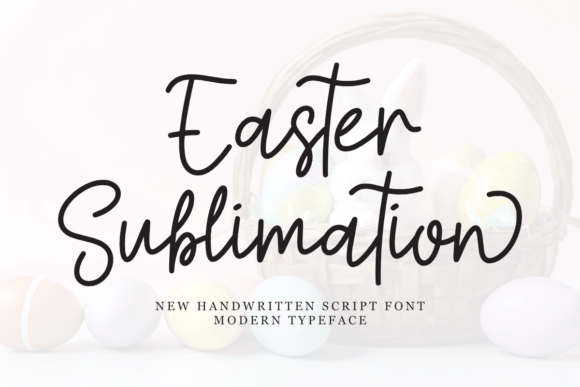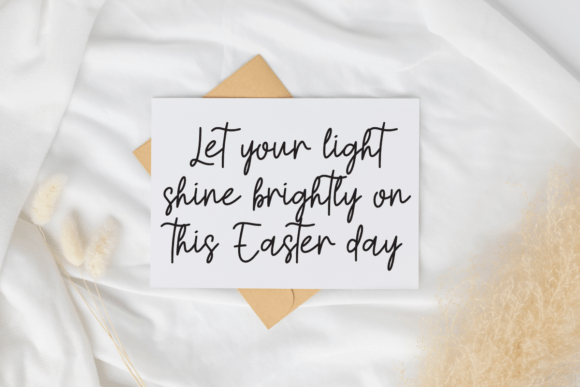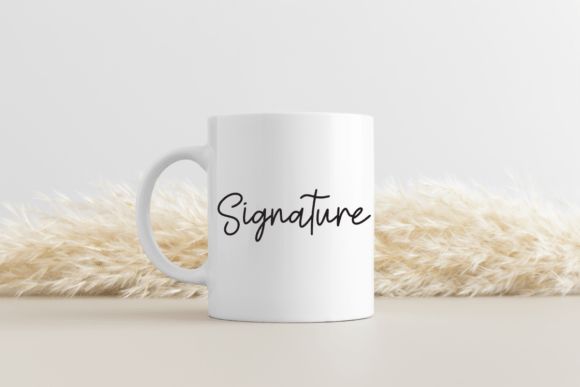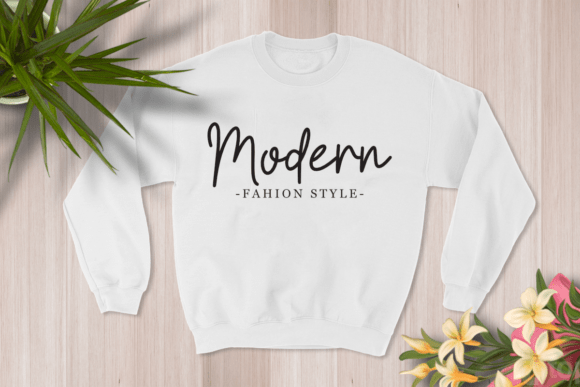
Easter Sublimation Font
About the Easter Sublimation Font
The wait is over! The incredible Easter Sublimation Font is now available for your design toolkit. Easter Sublimation is a modern handwritten script font that brings a touch of elegance and warmth to any design. With its smooth lines and flowing curves, this font is perfect for wedding invitations, nursery decor, greeting cards, branding, wall art, tumbler, sticker, cricut and other lovely creations.
Easter Sublimation Font Usage Examples
Easter Sublimation Font Example